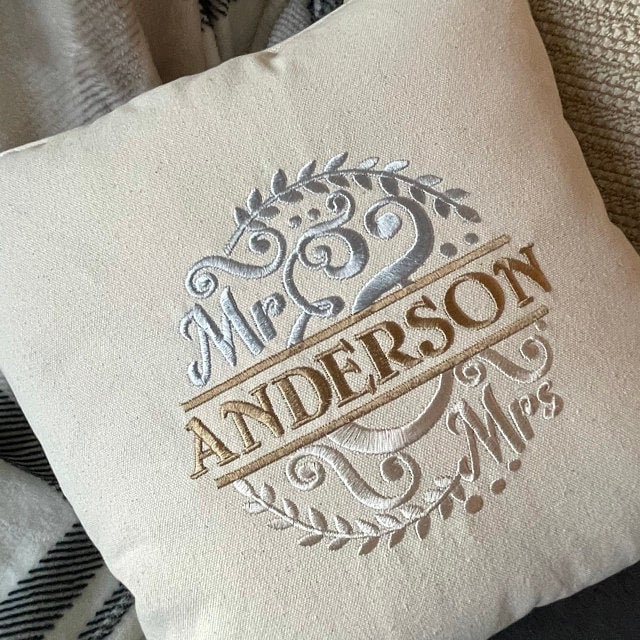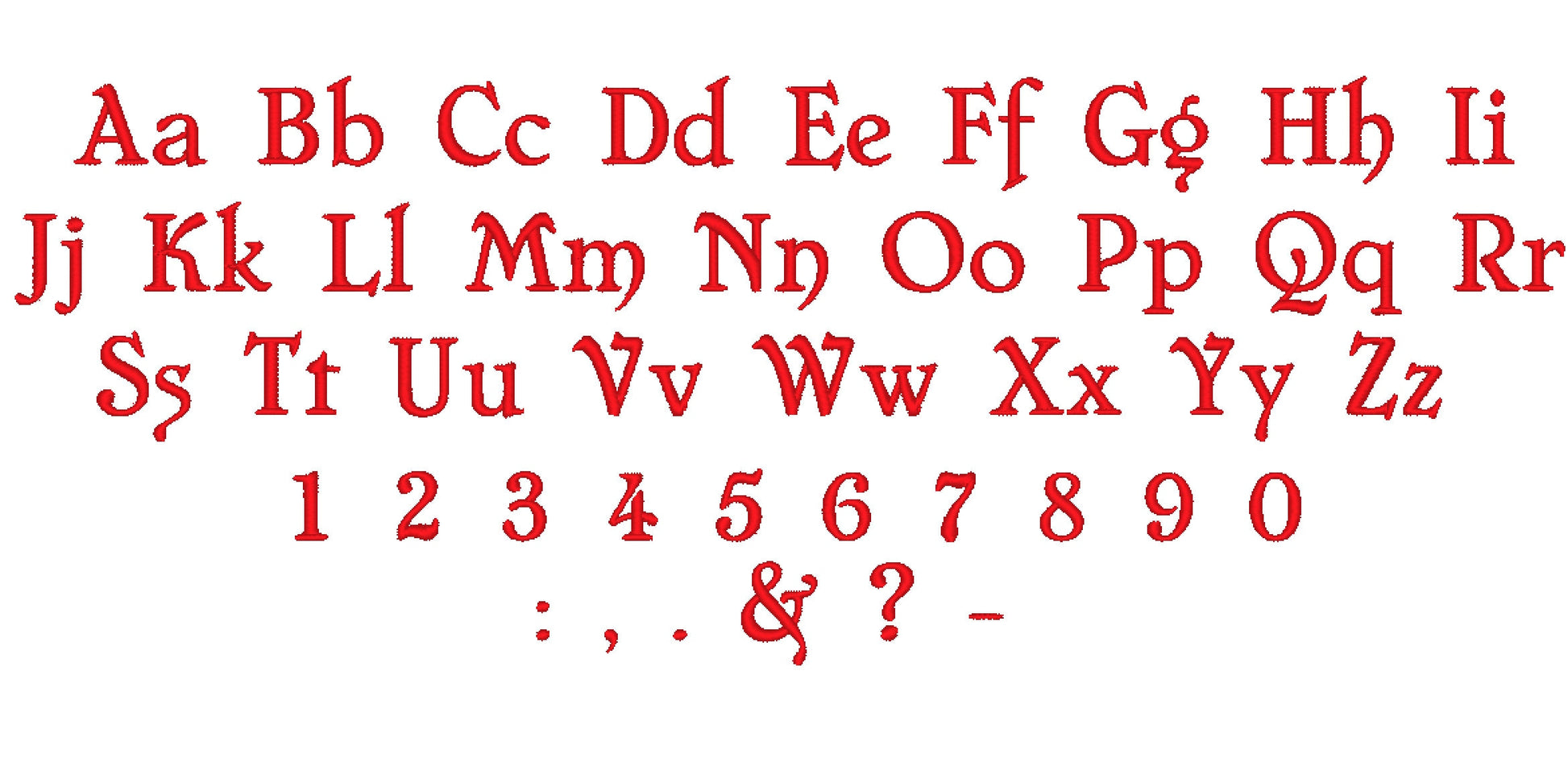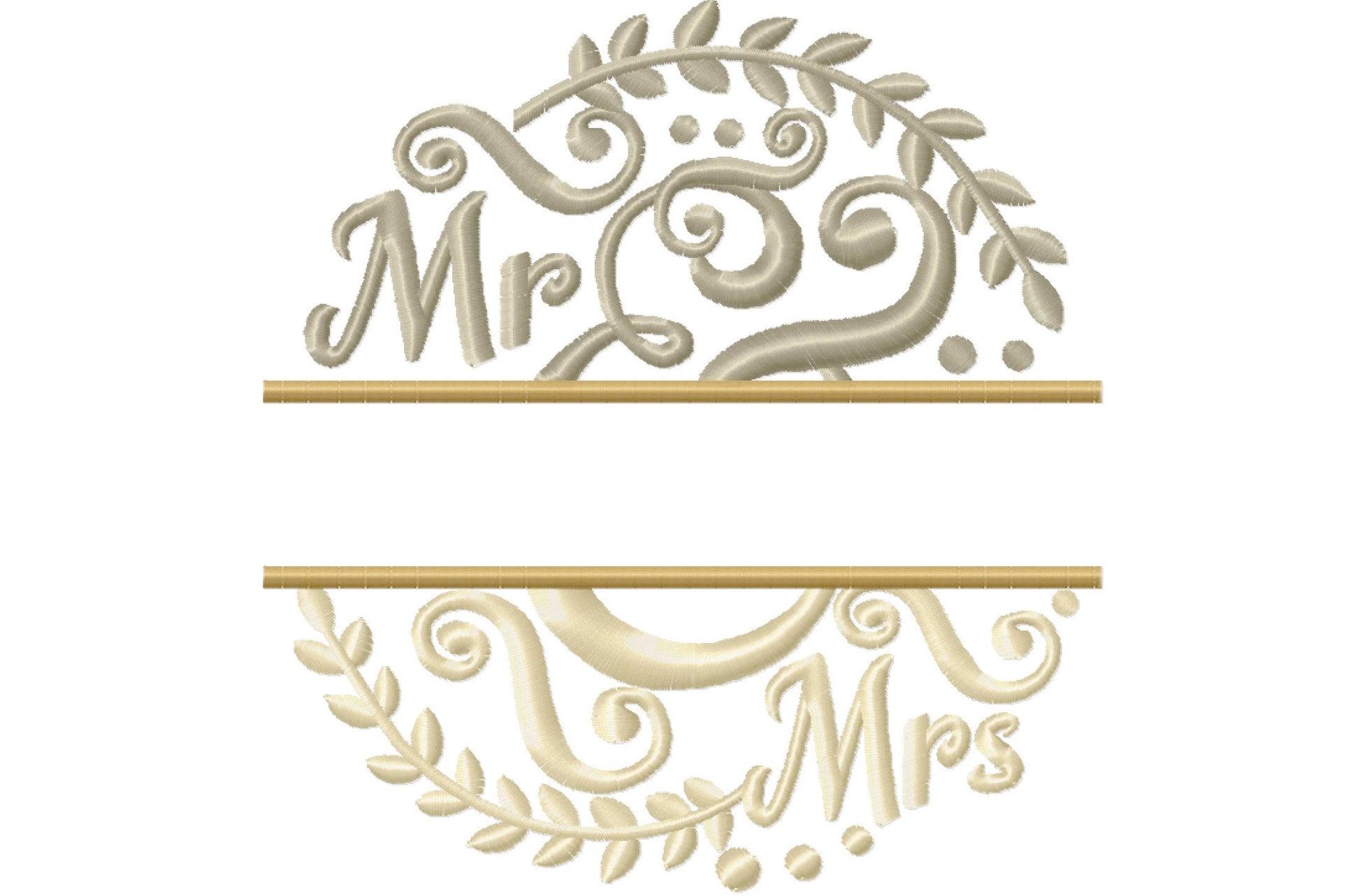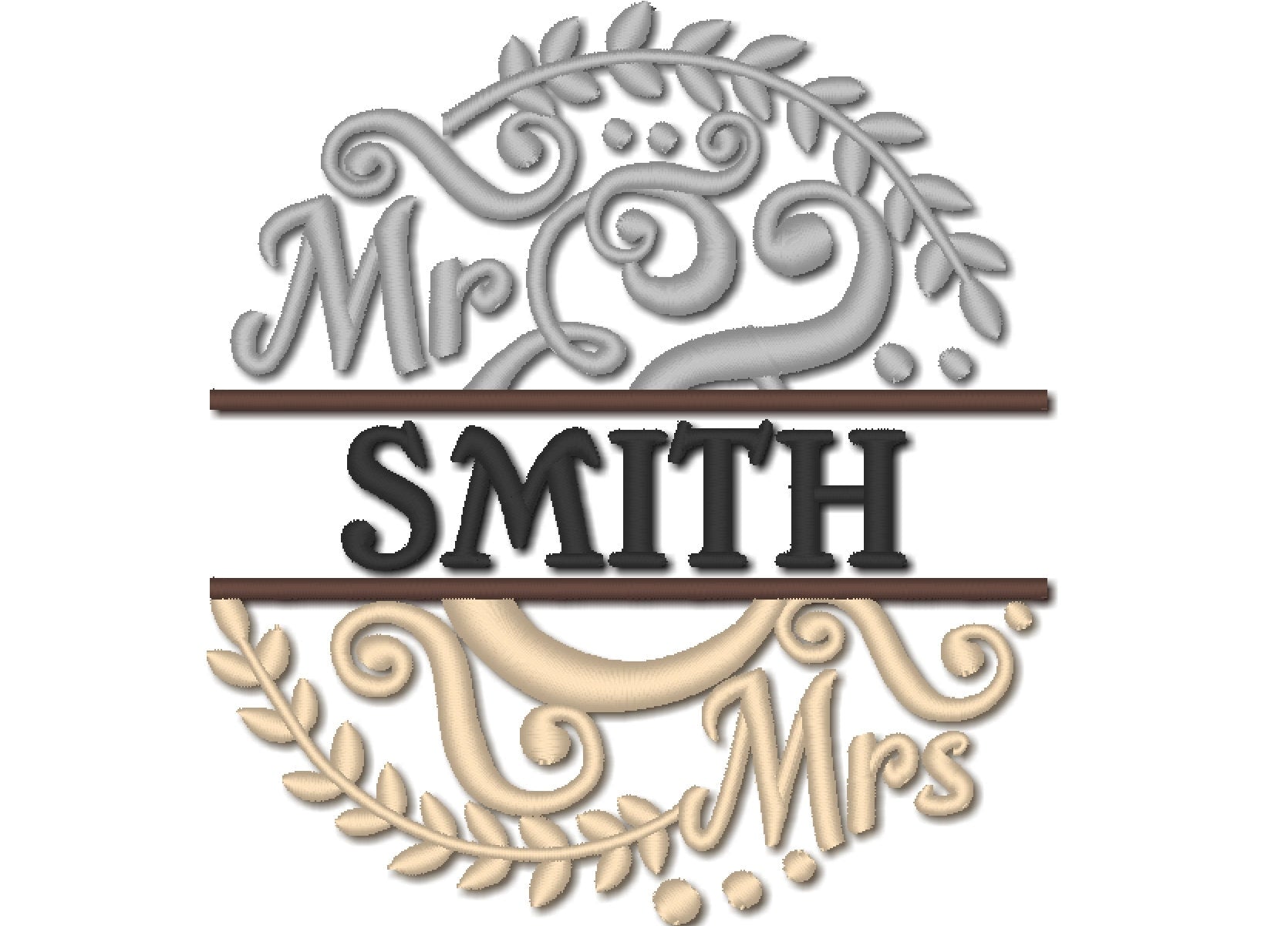
Mr and Mrs Split Monogram Frame
Included: Uppercase A-Z, Lowercase a-z, Numbers 0-9, Punctuation
A split circle laurel wreath monogram with Mr and Mrs and an ampersand, plus a mini font for names and dates. A lovely wedding gift for towels, pillows and garden flags.
The laurel circle opens in the middle for the couple's initial or last name. It comes in seven sizes from about 4 to 8 inches. The mini font has uppercase and lowercase letters, numbers 0 to 9 and punctuation in seven sizes: 0.4, 0.6, 0.8, 1, 1.2, 1.6 and 2 inches.
• Mr and Mrs split laurel circle monogram, about 4 to 8 in
• Mini font, uppercase, lowercase, numbers 0 to 9, 0.4 to 2 in